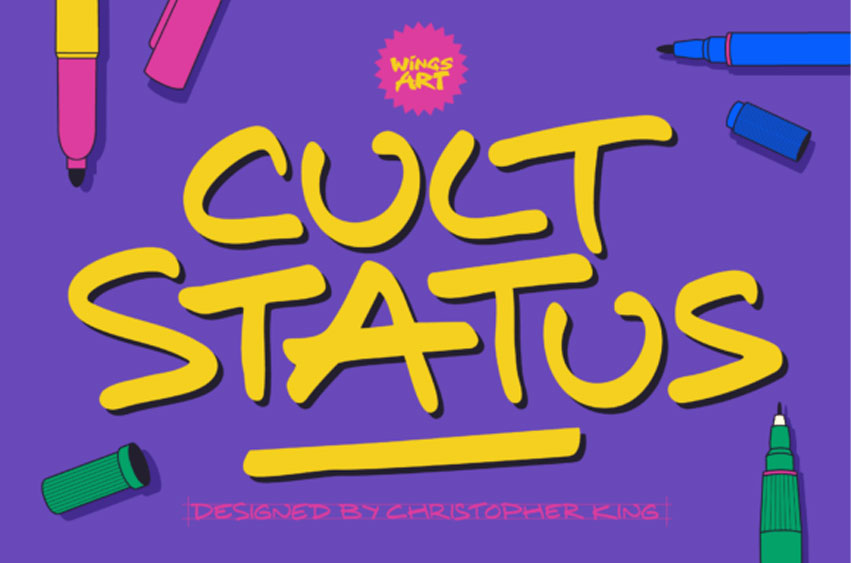
Cult Status Font
Cult Status Font is a versatile handwriting font based on a selection of real marker pens, offering three unique weights and an authentic, analogue flair.
Inspired by a broad spectrum of popular culture, this font has a personality that’s equally at home in comic books or album covers, music videos, animations and movie titles. Its obvious links to comic book lettering inspired the all-caps design, bringing a looser, freehand flow reminiscent of home-made mix-tapes, or quick messages scribbled on a Post-it note. It’s the perfect choice for adding the human touch to your work in an all-digital age.